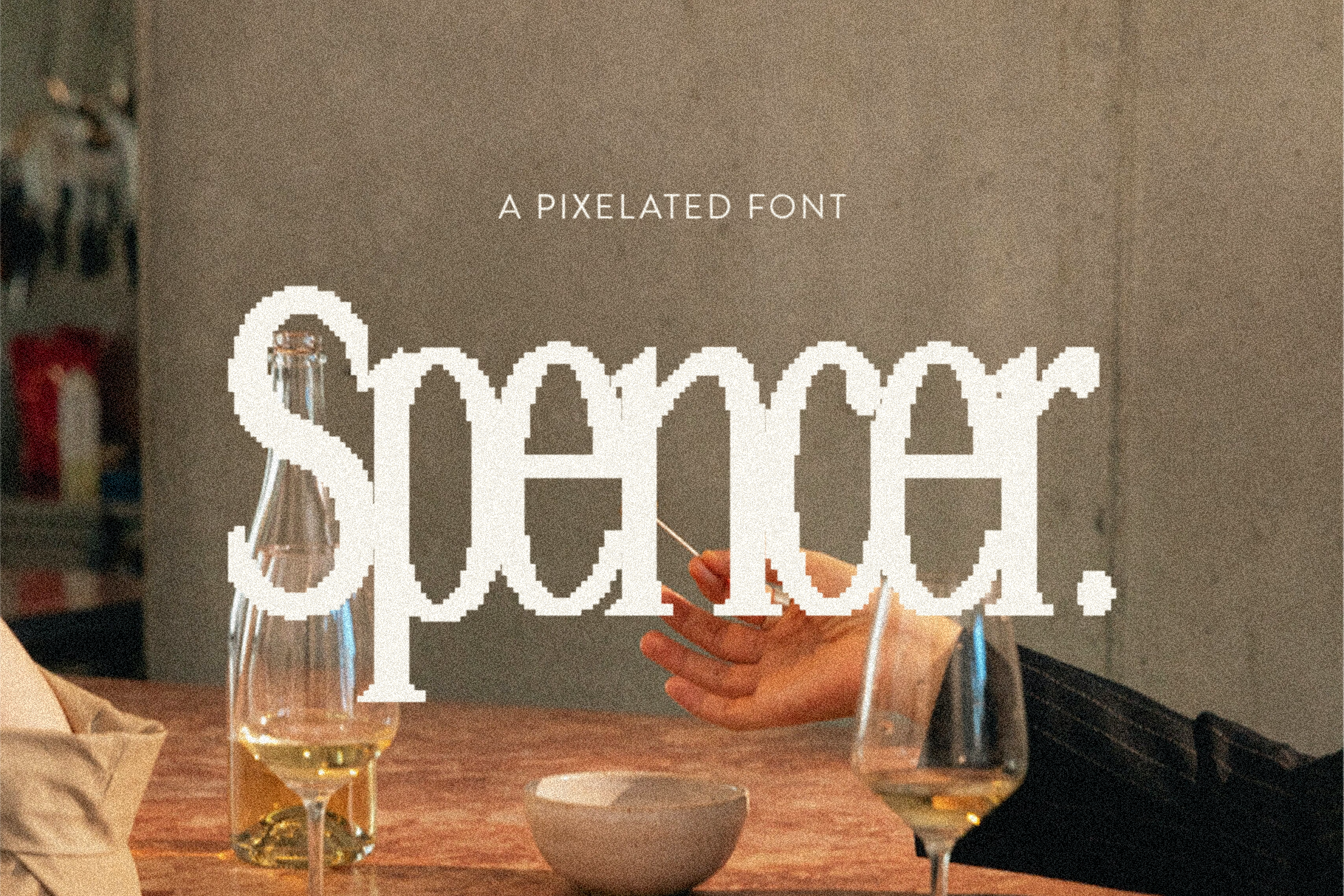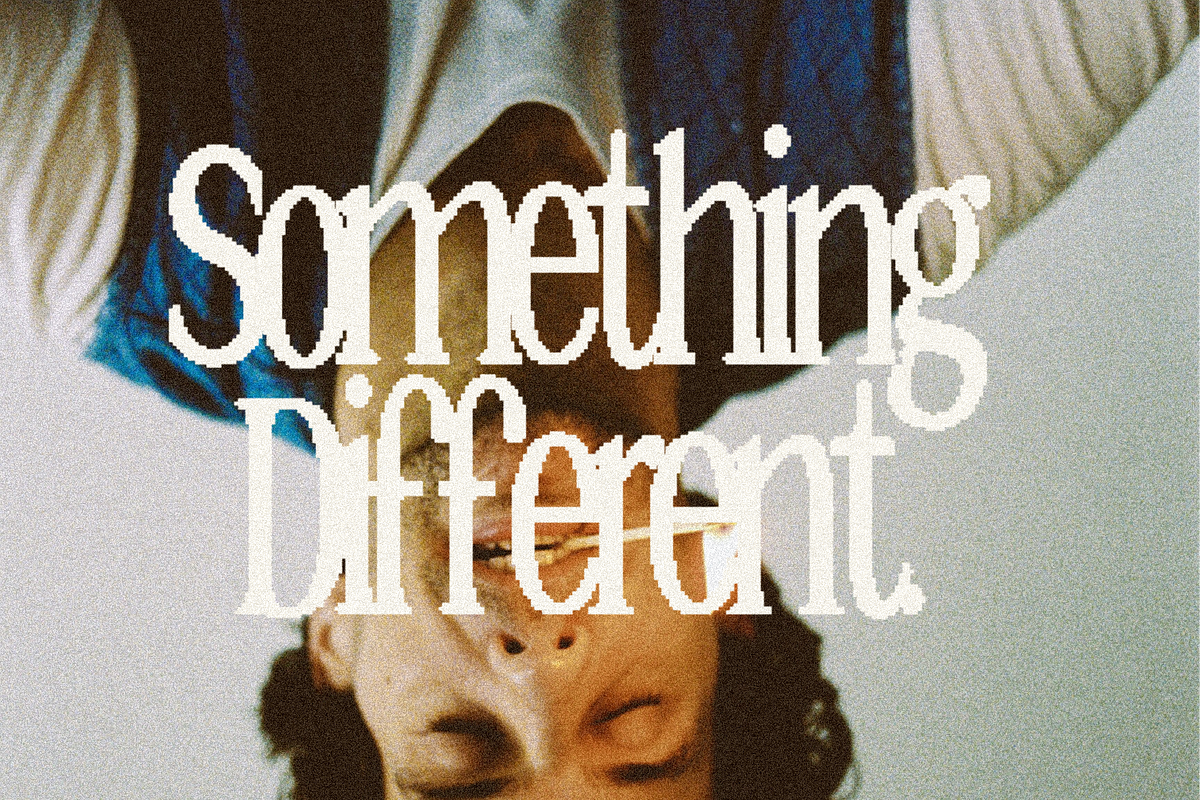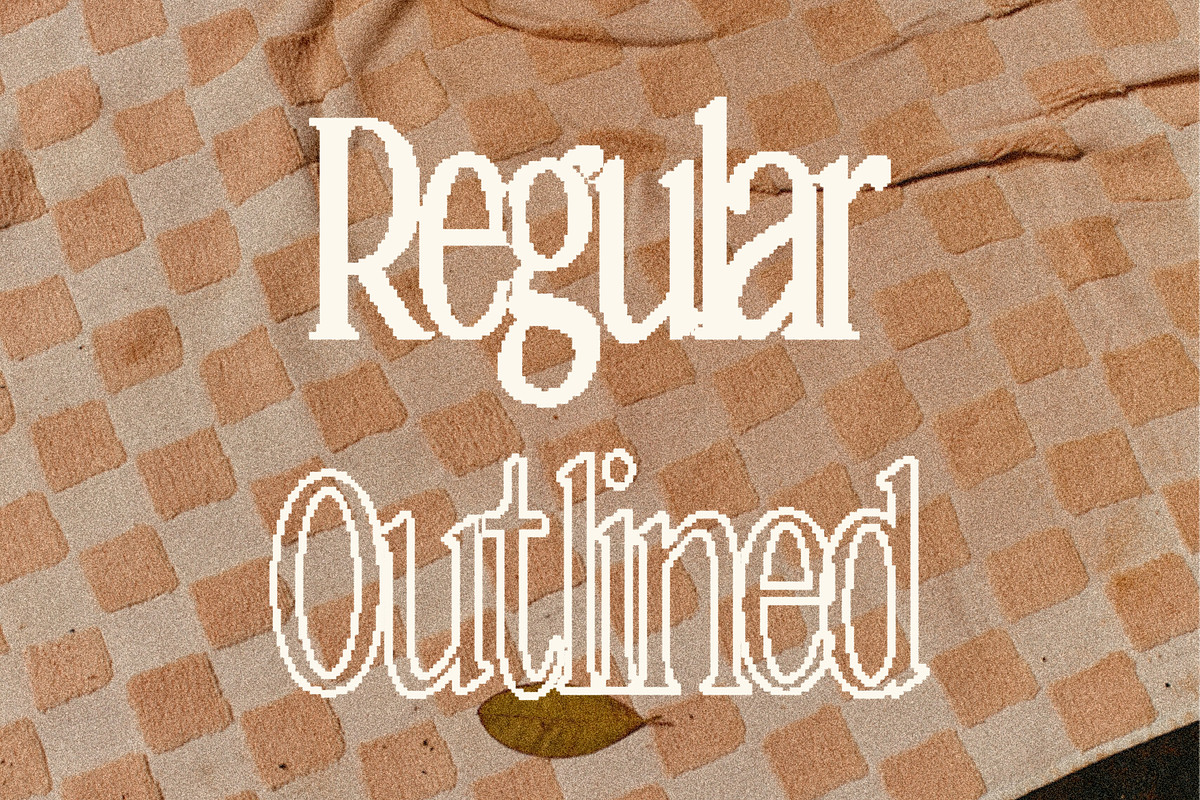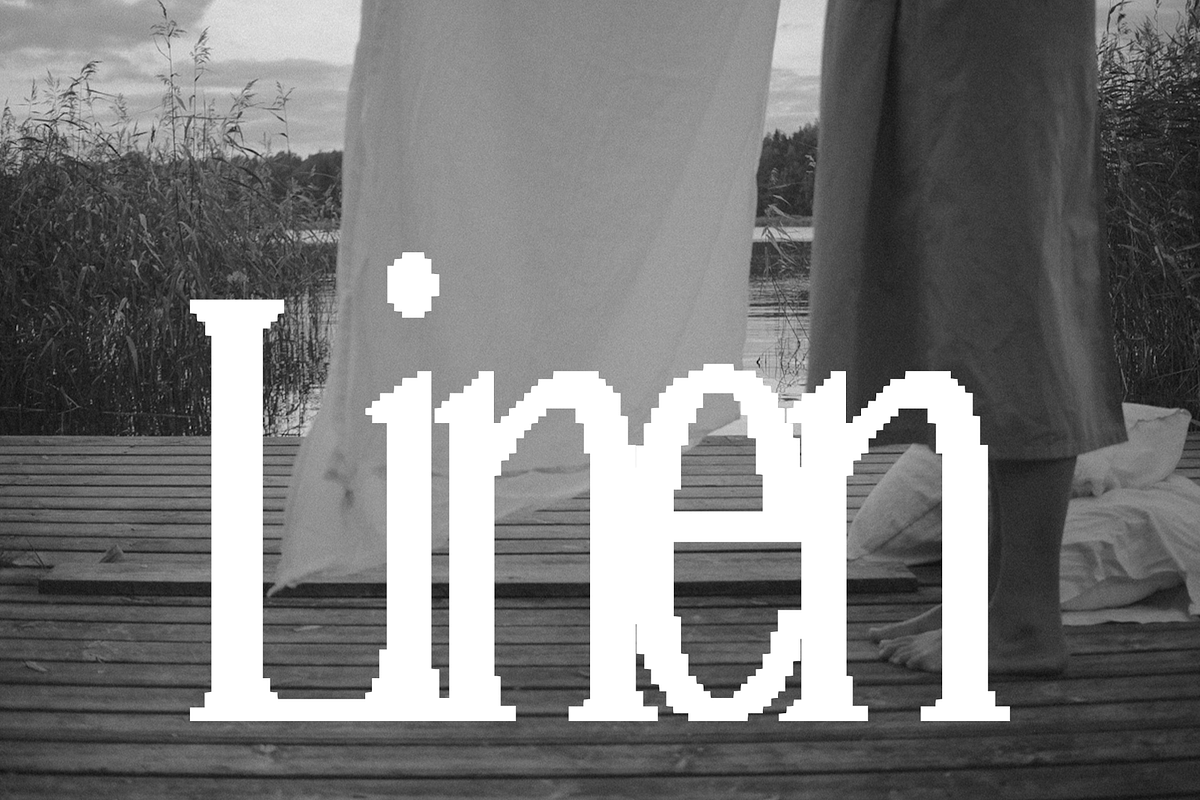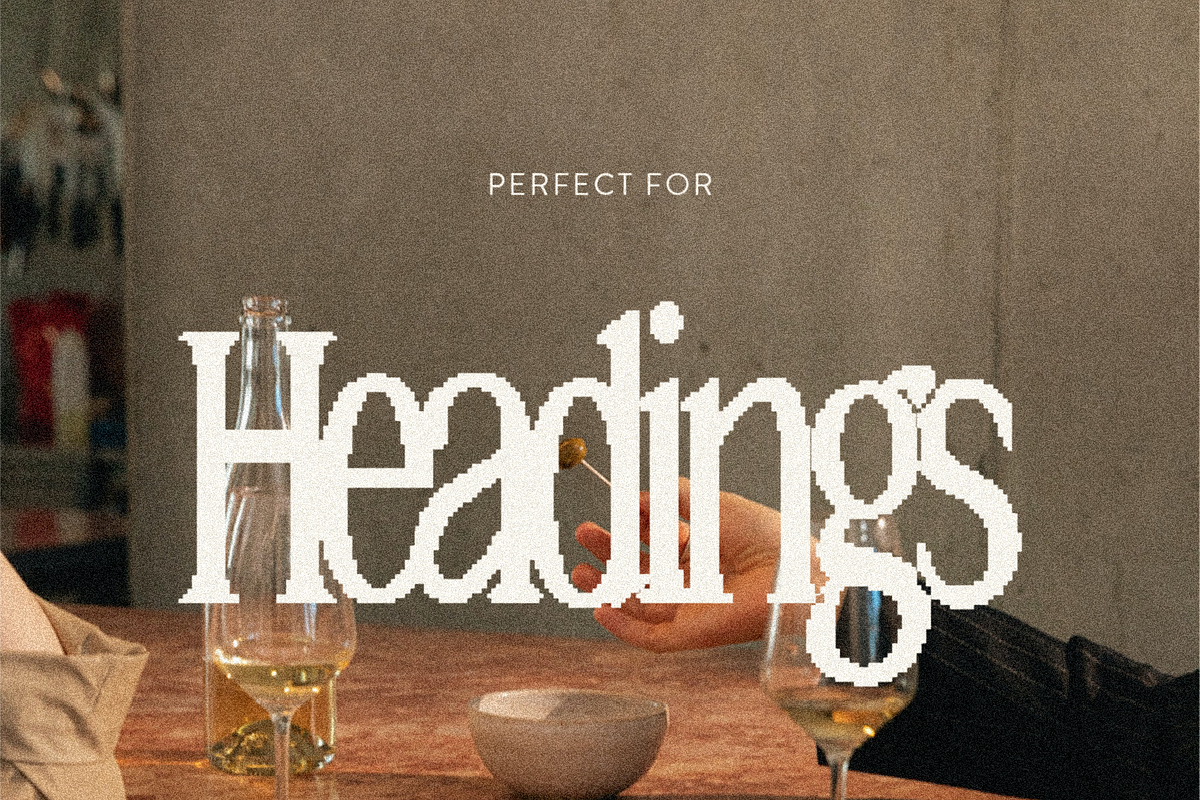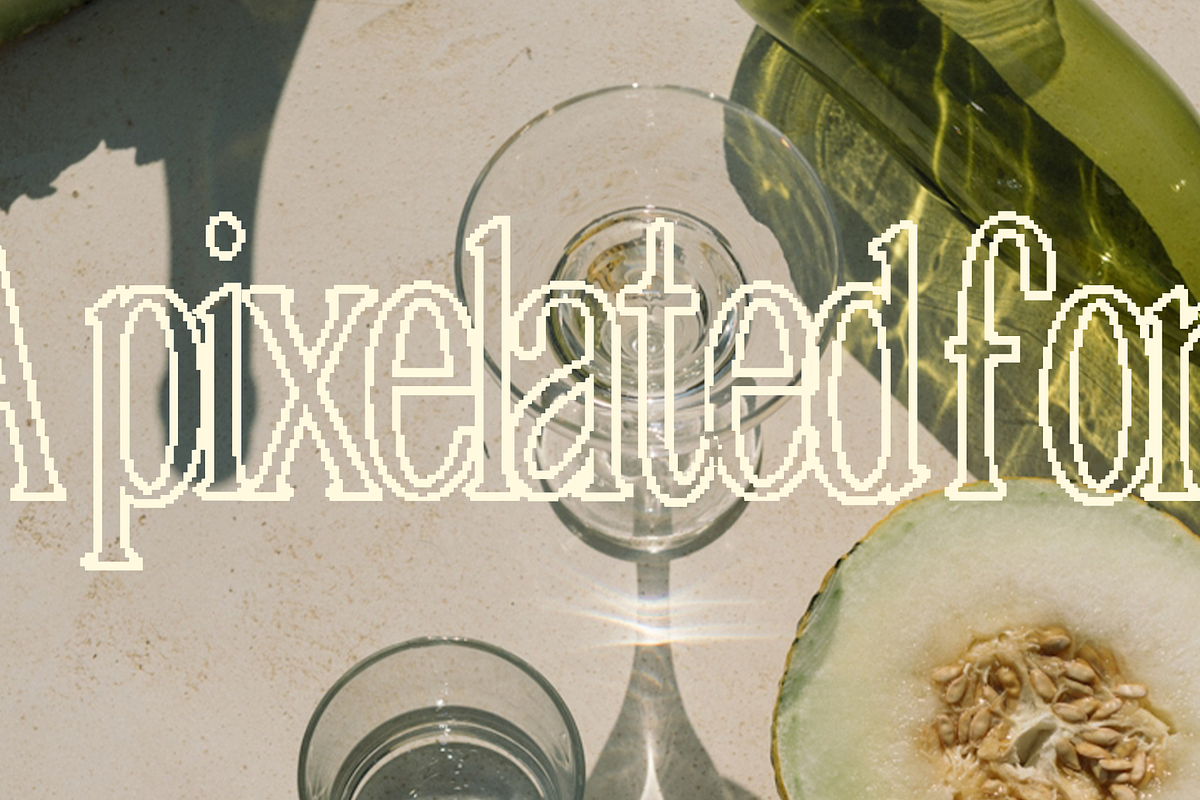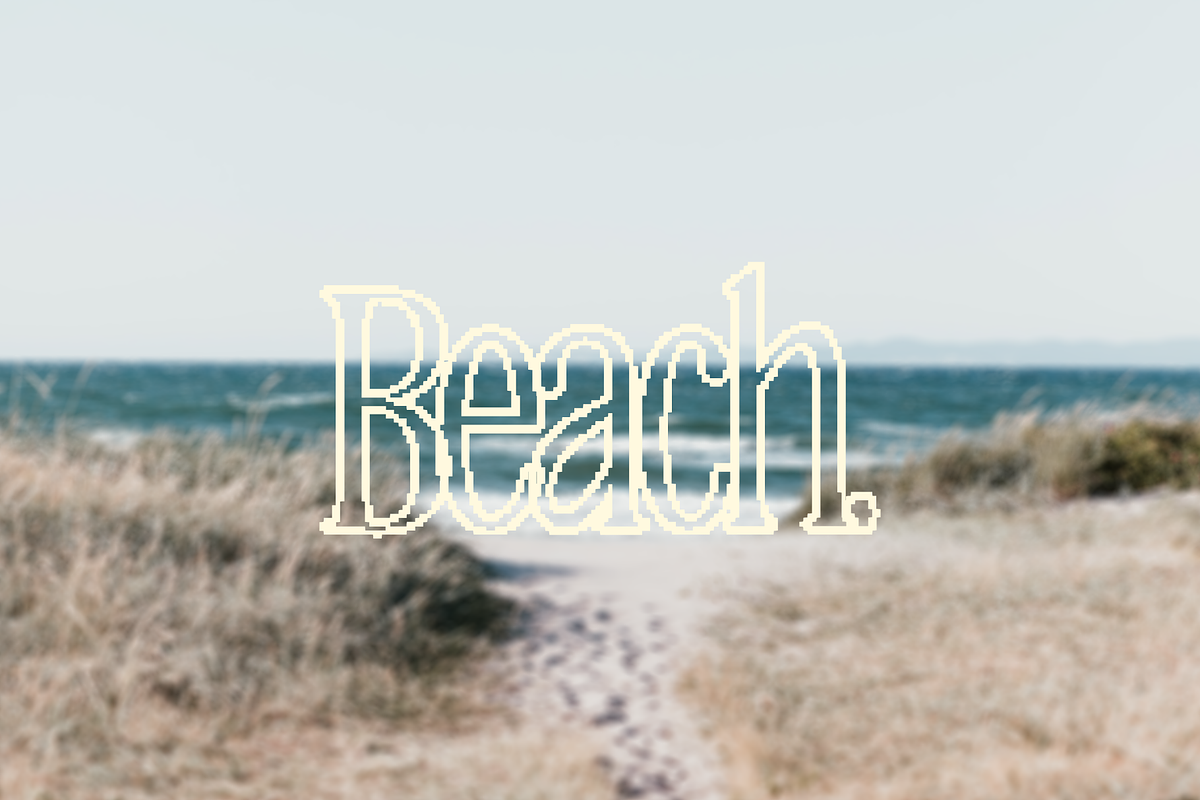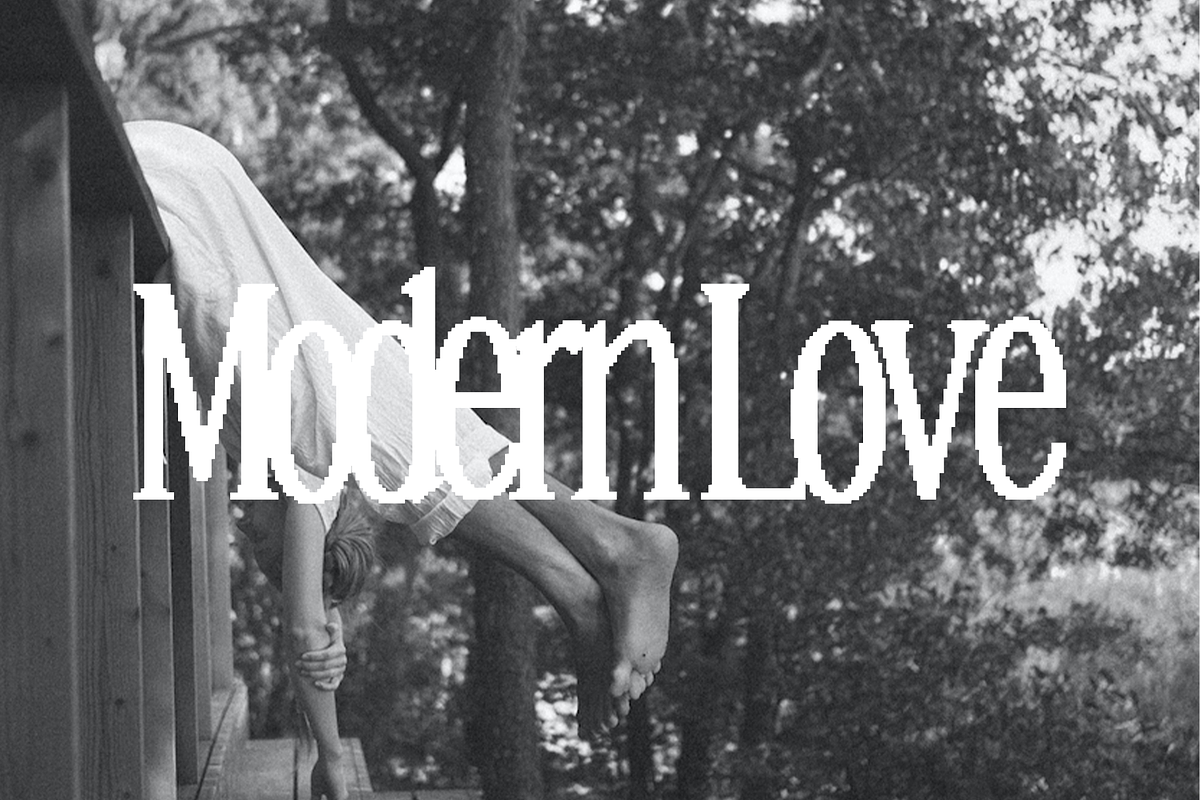
Spencer | A Pixelated Font
Please welcome Spencer to the font family. Spencer is a modern take on the pixelated font trend. This tall, narrow, pixelated serif font is perfect for adding a modern (yet ironically retro) feel to your digital marketing. To get the full pixelated fun, this font is perfect for headings/larger text and comes in both regular and outlined.
⋒ perfect for ⋒
- headings
- on-trend electronic marketing
- logos
- magazine headings
- book covers